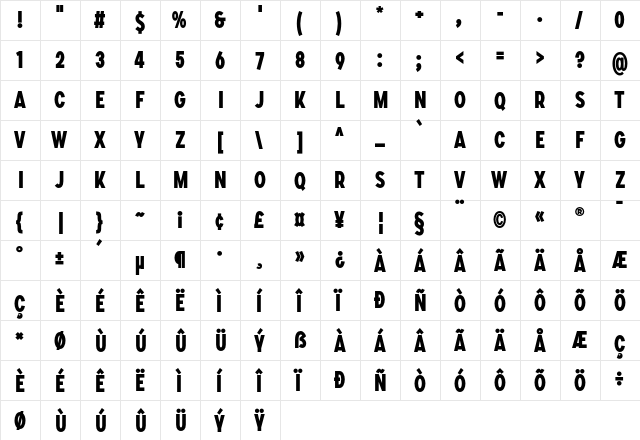
SONGER Condensed ExtraBold
| Foundry | Alexander Pravdin |
| Designer | Alexander Pravdin |
Design Context for SONGER Condensed Typeface
SONGER Condensed is a composed and adaptable typeface that performs quietly and consistently across a wide range of design contexts. The heavy weight commands attention and anchors typographic hierarchies. The condensed width makes it efficient for tight spaces without sacrificing legibility.